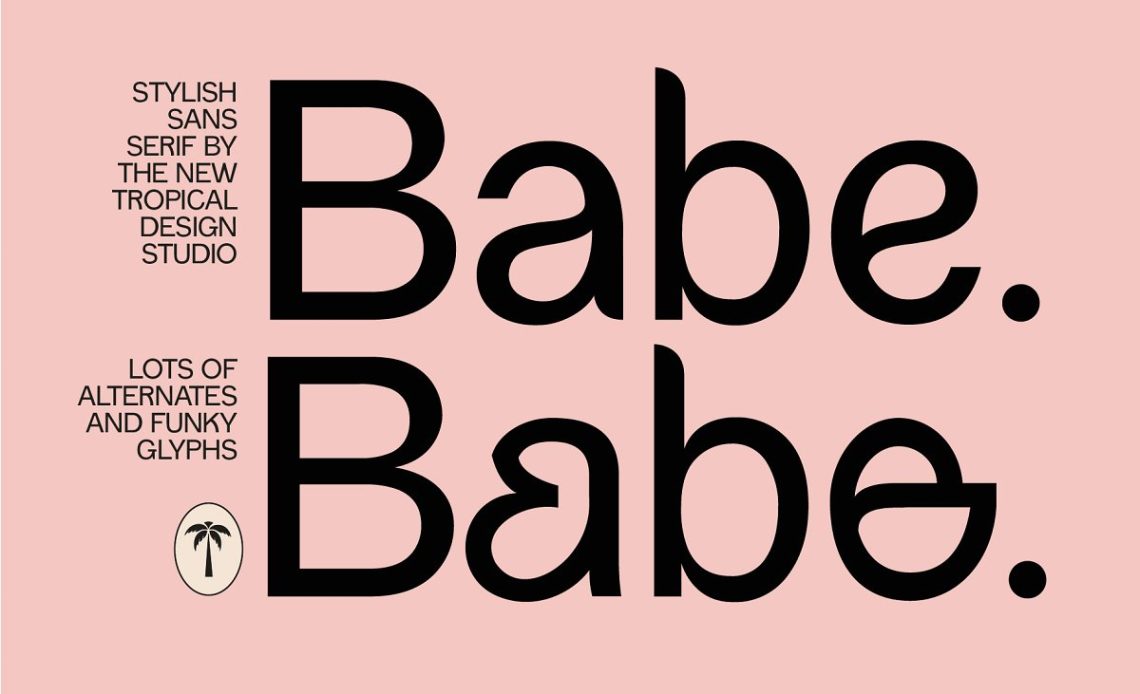
Welcome to the world of Babe - the best font for poetry poster. Created by the renowned New Tropical Design Studio, Babe Sans is a stunning sans-serif font that is all about curves, style, and elegance. Whether you're a blogger, graphic designer, or just someone who appreciates beautiful typography, Babe Sans is a must-have in your font collection.
Babe Sans is not your ordinary font. It's clean, legible, and modern like a classic sans-serif, but with a touch of style and flair that makes it unique and memorable. With its groovy curves and funky alternates, Babe Sans is perfect for creating eye-catching poetry posters, social media graphics, blog posts, and more. And with multilingual support (including Polish), you can use Babe Sans for projects in any language.